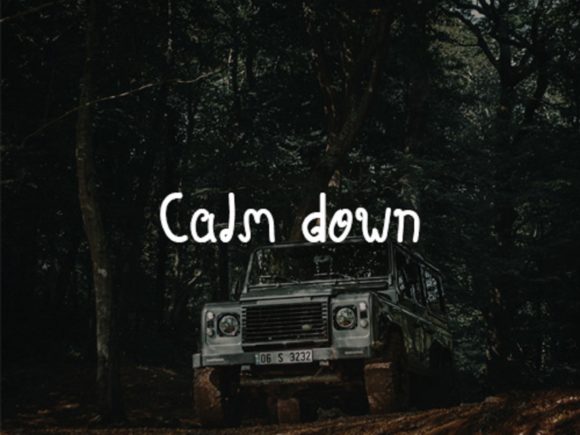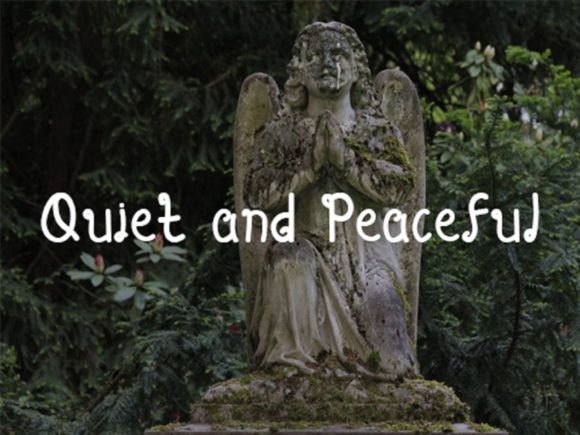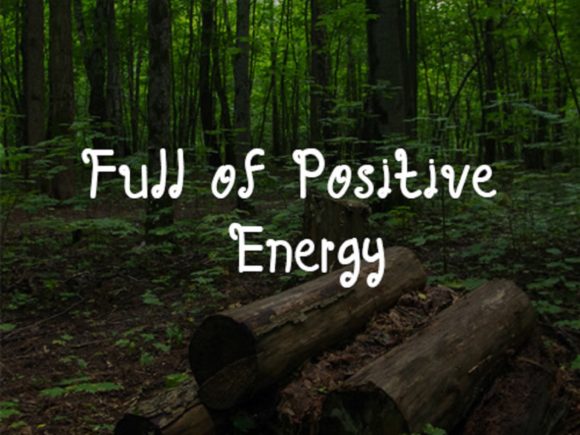
Introduction to Nature Spirit Font
Have you ever found yourself staring at a blank canvas, struggling to bring your creative vision to life? It’s a familiar feeling for many designers, but what if you had the perfect tool to unlock your imagination? That’s where the Nature Spirit Font comes in – a chic, refined script font that embodies sophistication and elegance.
This high-quality font is more than just a design resource – it’s a game-changer for any creative project. With its stylish alternates and ligatures, the Nature Spirit Font is the perfect match for designers looking to add a touch of sophistication to their work. Whether you’re working on a free download or a paid project, this font is sure to elevate your design to the next level.
And the best part? The Nature Spirit Font can be used on any transparent background, giving you complete freedom to experiment with your design.
Key Features of Nature Spirit Font
- High-quality, hand-drawn design perfect for creative projects, such as illustrations, logos, and typography.
- Features a unique, whimsical style that adds a touch of magic to any creative project.
Honest Review: Nature Spirit Font
I recently stumbled upon the Nature Spirit Font, and I must say it’s been a game-changer for my creative project. The font is a high-quality design resource that can elevate any design to the next level.
- ✨ The font has a beautiful, natural feel to it, perfect for designs that require a touch of whimsy and elegance.
- ⚠️ The font may not be suitable for designs that require bold, dramatic typography, as it’s more suited for subtle, natural designs.
Overall, I’m really impressed with the Nature Spirit Font. It’s a great design resource that can add a touch of magic to any creative project. Just be aware of its limitations, and you’ll be golden.
Tips for Getting the Most Out of Nature Spirit Font
Use the Nature Spirit Font to add a touch of nature to your design project. Experiment with different font sizes and colors to create a visually appealing design. You can also combine the font with other design elements such as images and graphics to create a high-quality design resource.
The Nature Spirit Font is suitable for various design projects such as wedding invitations, greeting cards, and social media graphics. You can also use the font in educational materials, marketing materials, and other creative projects.